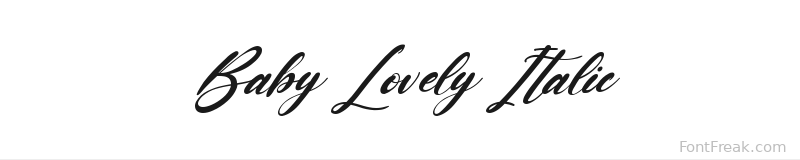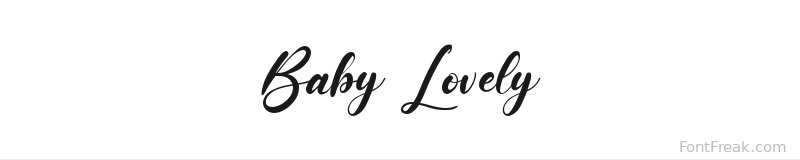
Baby Lovely Italic
Baby Lovely
About Baby Lovely Italic
Baby Lovely Italic is a charming script typeface designed by Kong Font and released in 2020. This font exemplifies the elegance and warmth often associated with handwritten styles, making it a perfect choice for projects that require a personal touch. The strokes of the Baby Lovely Italic are fluid and graceful, featuring a moderate contrast that balances between thick and thin lines. Its slightly slanted italic form adds dynamism, while the generous spacing between characters ensures readability without sacrificing style. The decorative elements, characterized by soft curves and playful flourishes, further enhance its appeal, making it a delightful addition to any typographic collection.
This font is ideal for various creative applications. It shines in wedding invitations, where its romantic flair can beautifully convey heartfelt sentiments. Additionally, Baby Lovely Italic is perfect for greeting cards, adding a touch of unique personality to any message. Small business owners can leverage this font for branding, particularly in sectors like boutique shops or artisan cafes, where a warm, inviting aesthetic is key. Content creators seeking to elevate their social media graphics will find that this typeface captures attention and conveys a friendly tone. Lastly, it's a fantastic choice for children’s book covers, where its playful nature resonates with young audiences.
Targeted primarily at graphic designers, small business owners, and content creators, Baby Lovely Italic font free download offers an accessible option for those looking to enhance their visual communication. Its distinctive character and versatility make it stand out among countless typefaces, providing a unique blend of elegance and approachability that can elevate any project. Embrace the charm of Baby Lovely Italic and let your designs speak with warmth and creativity.